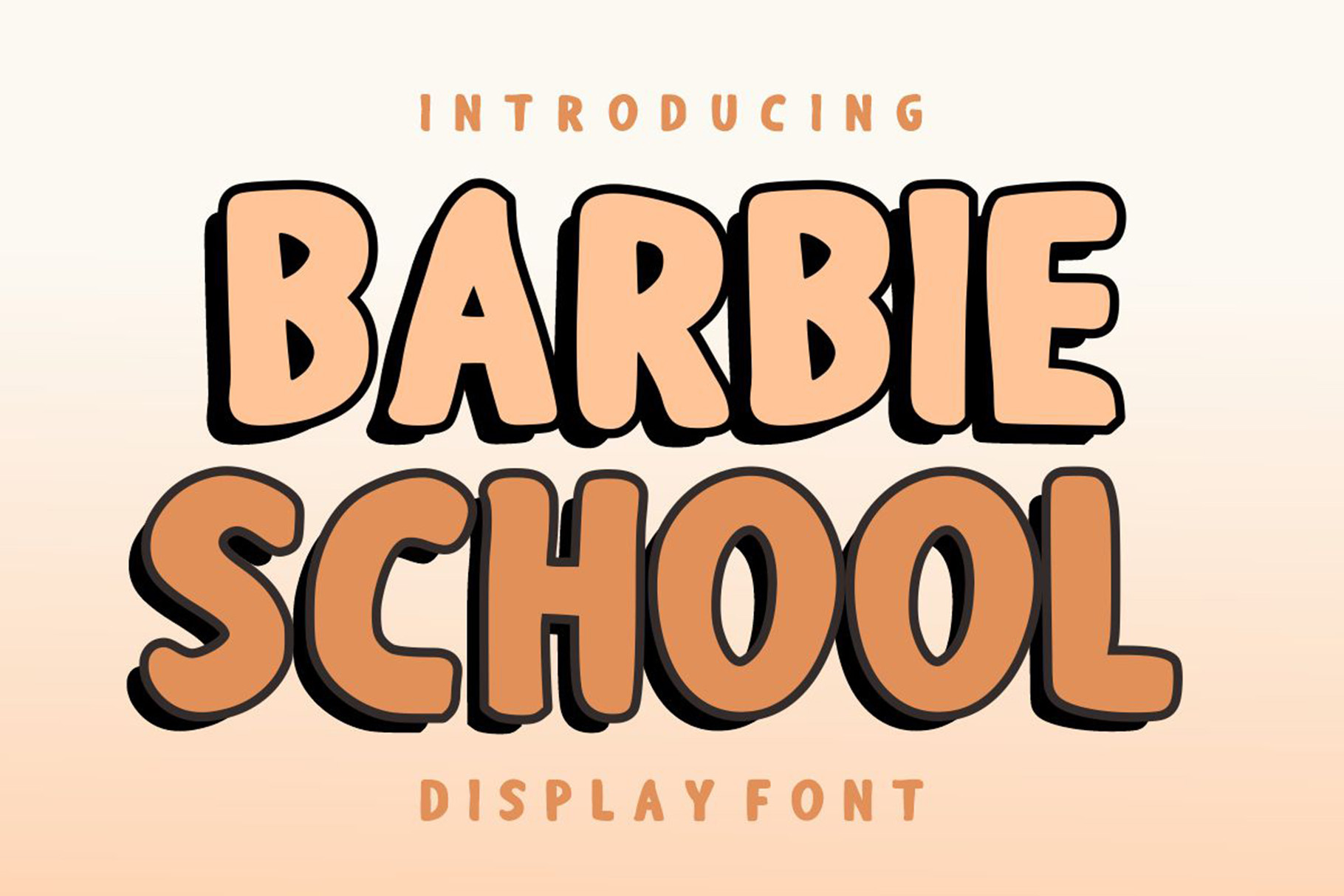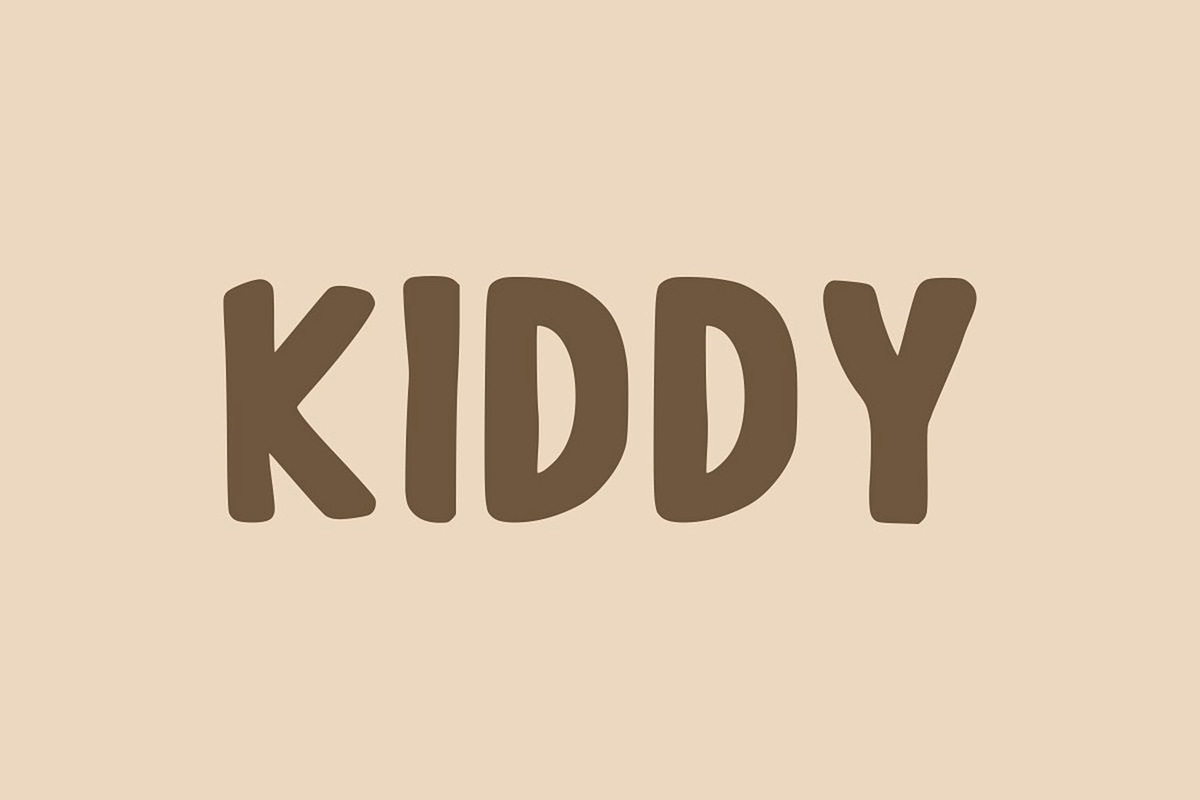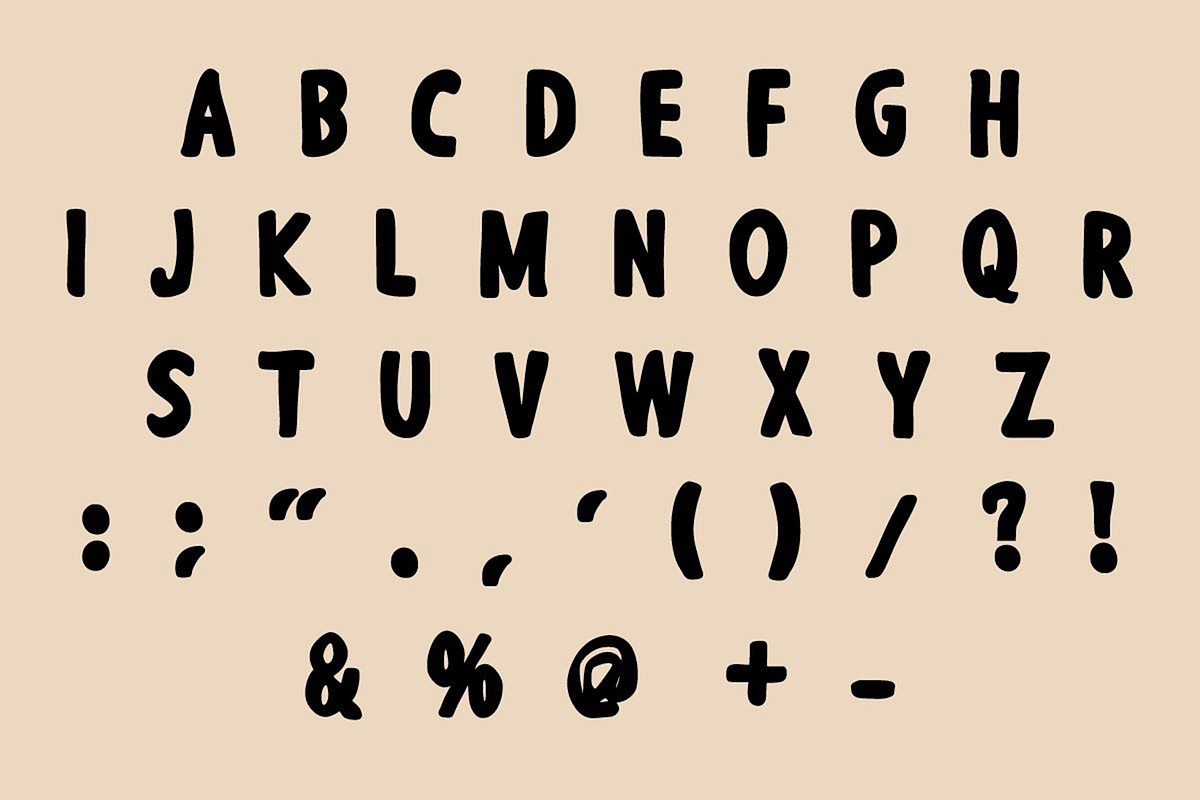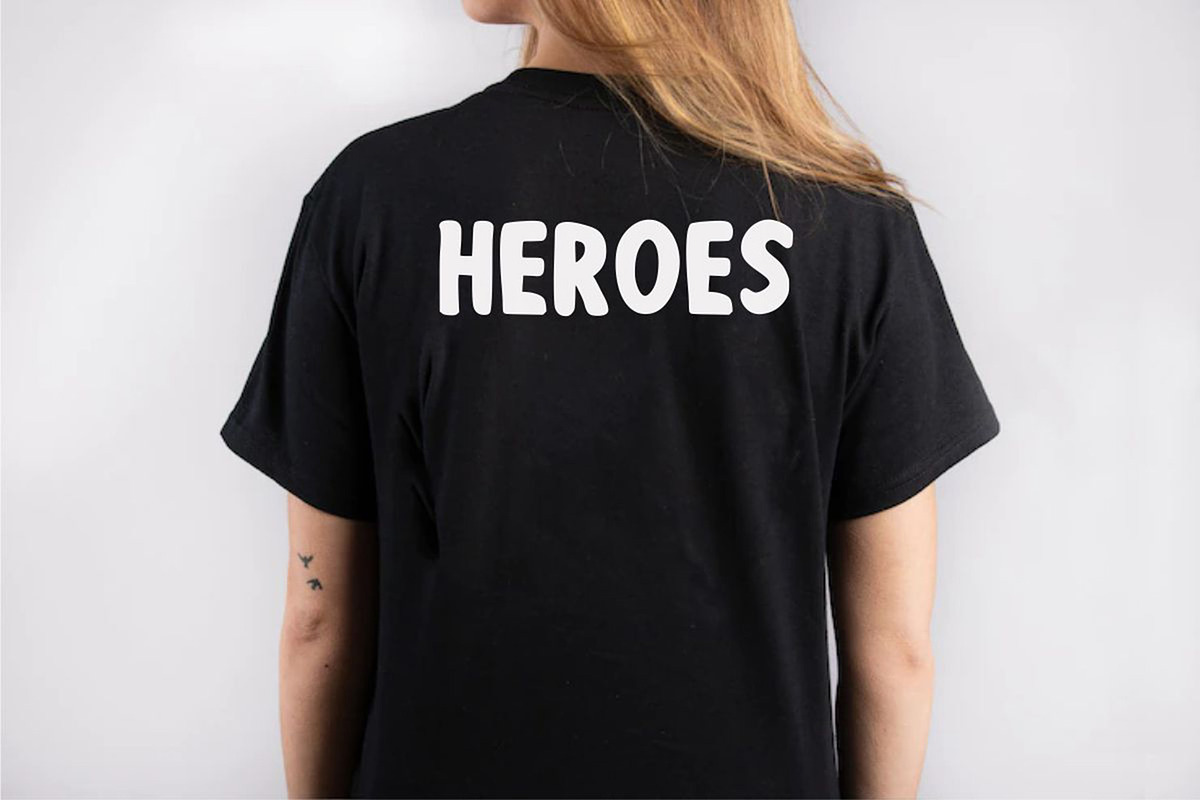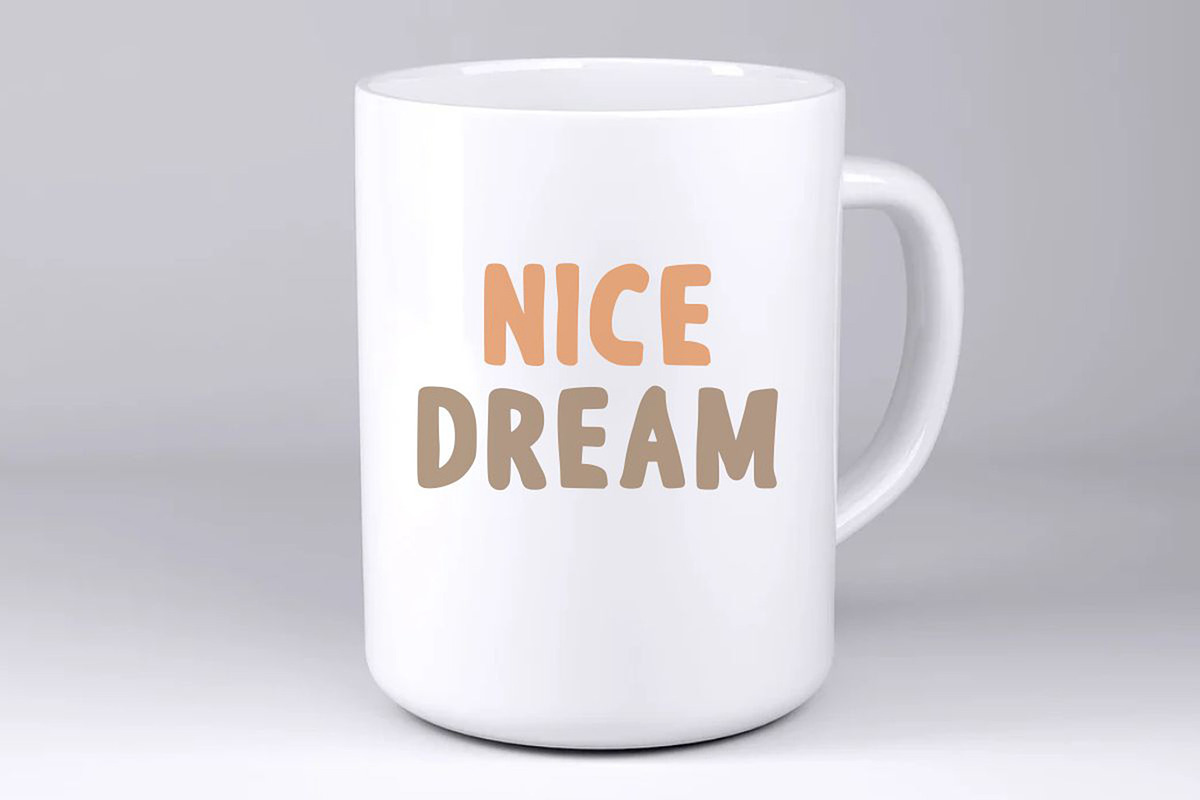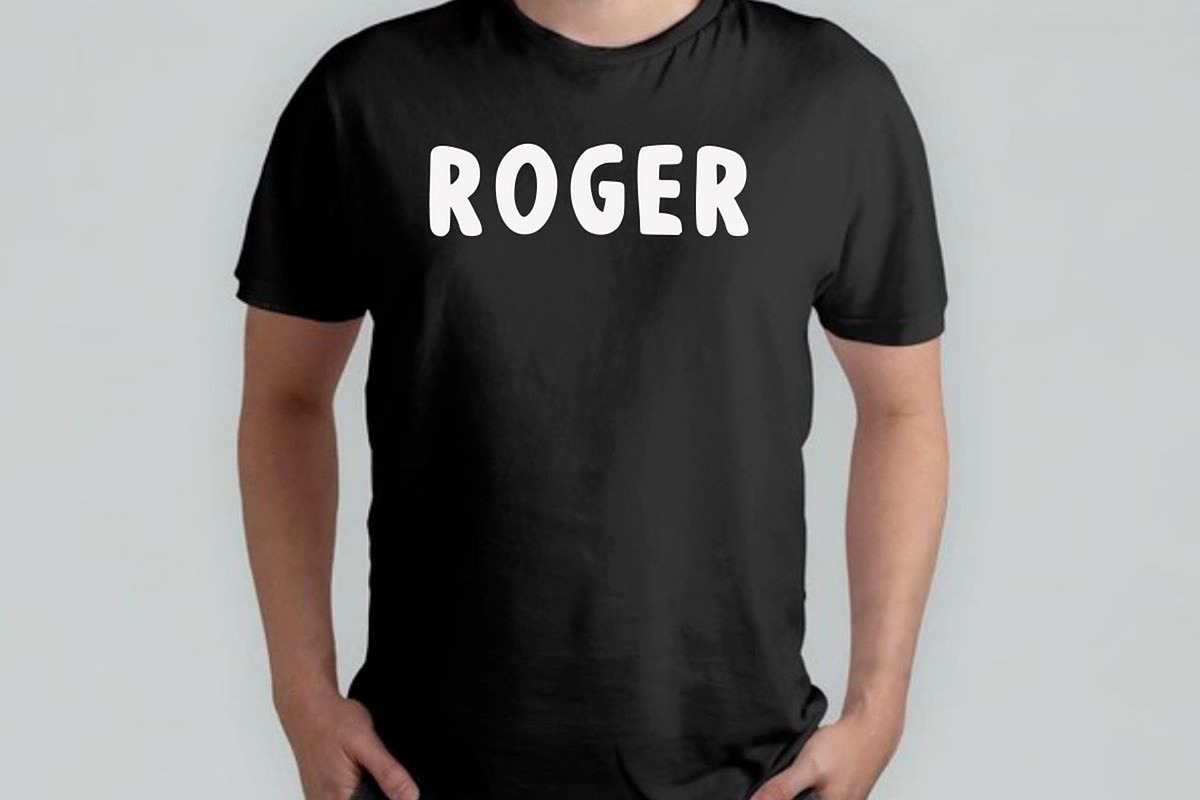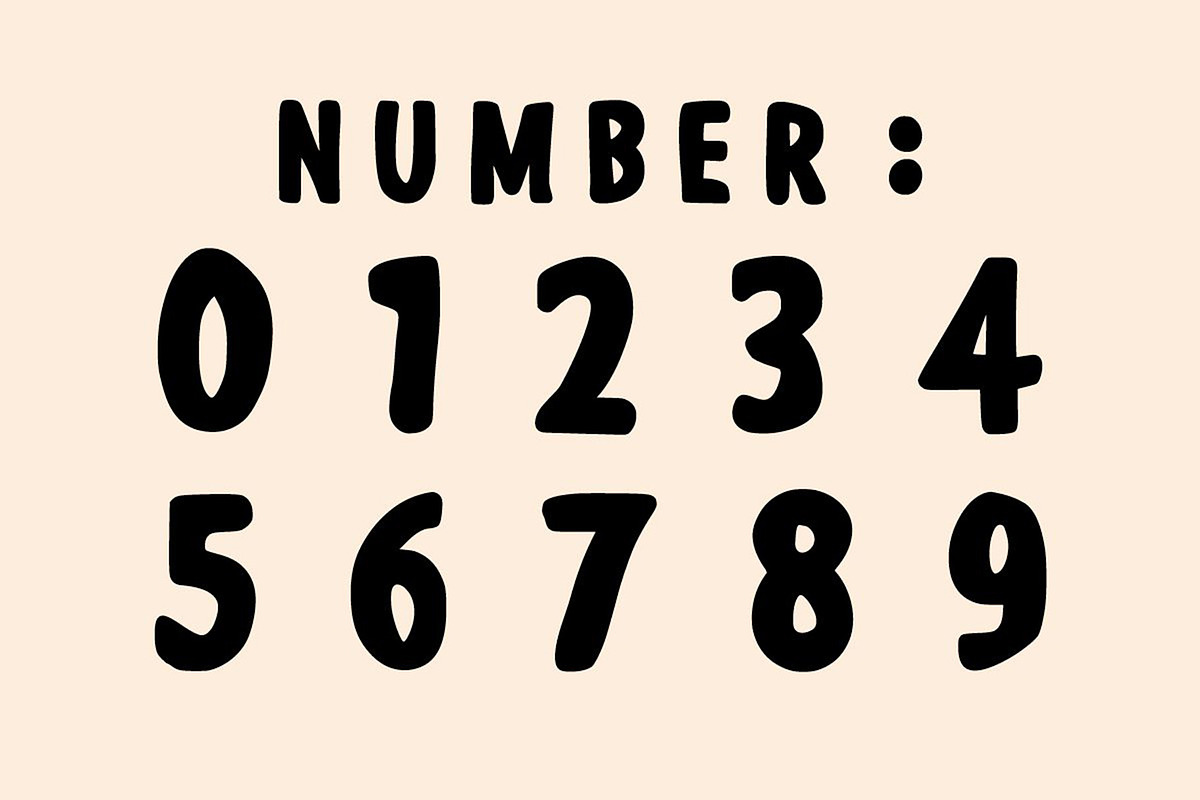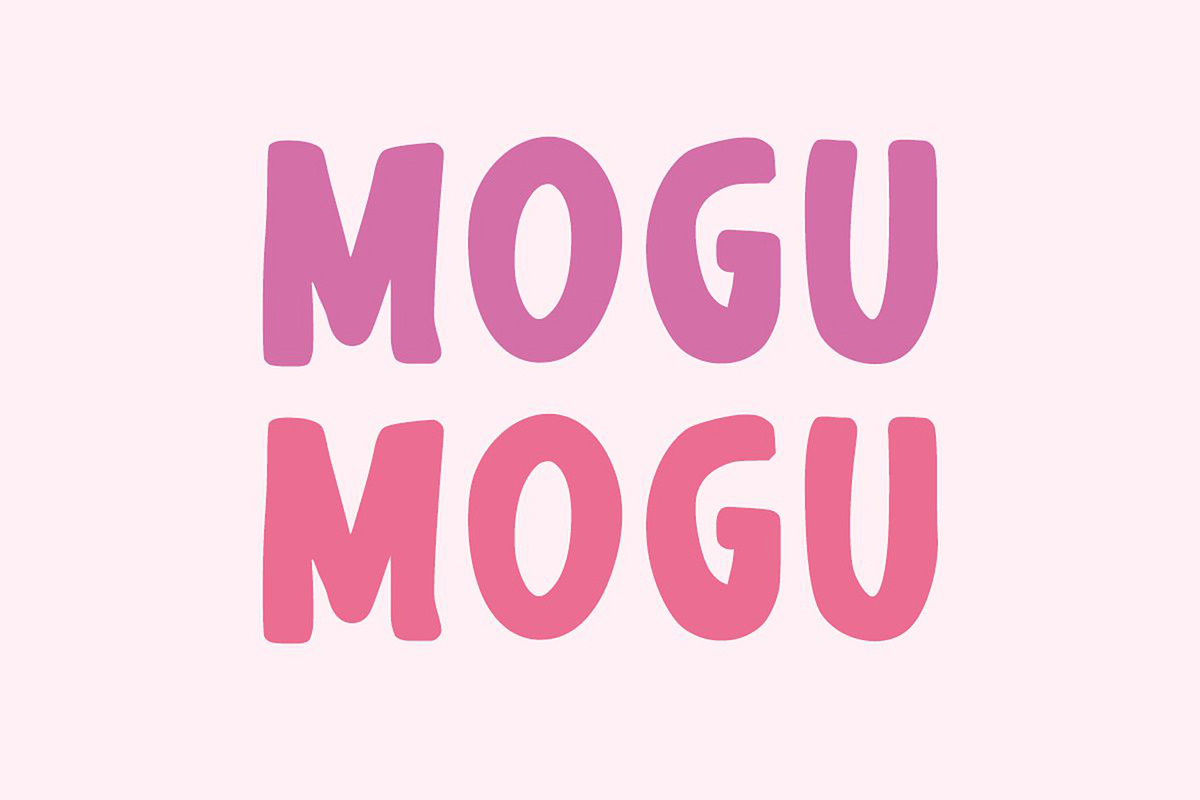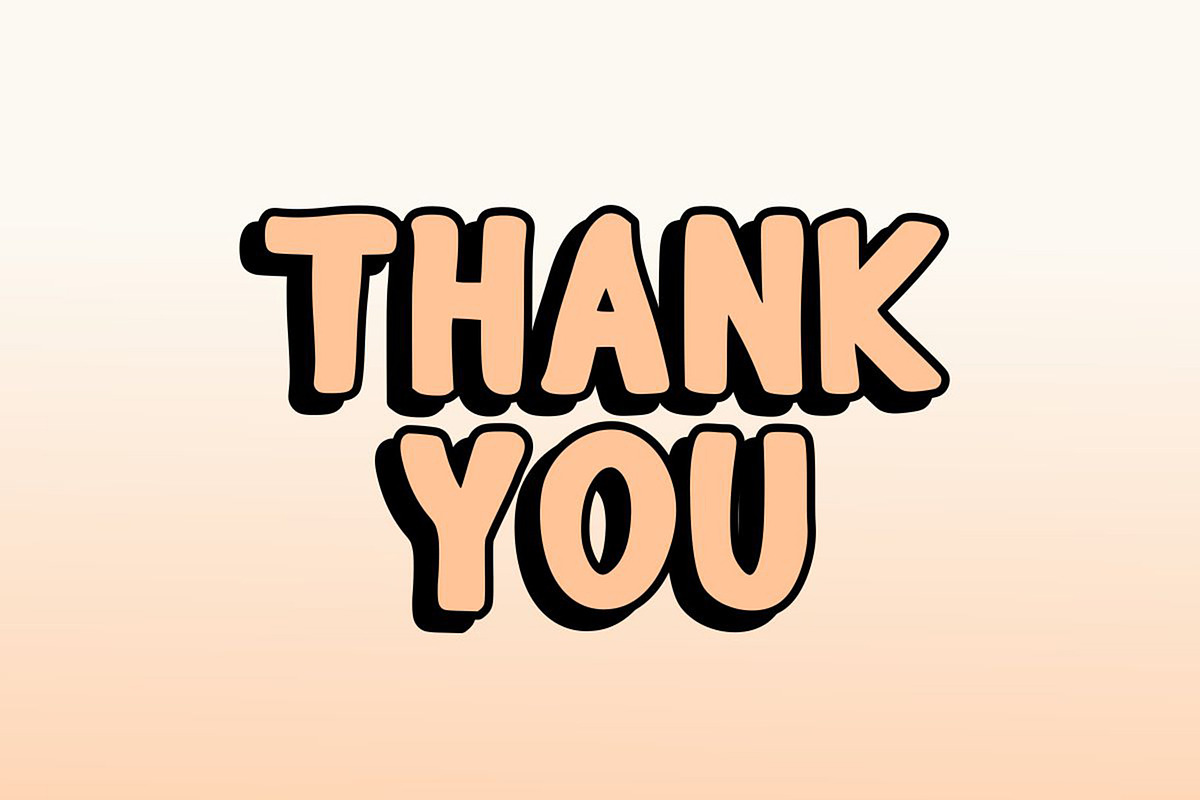
Barbie School - Handrawn Font
Barbie School is a cool and bold-looking display font. It features a dynamic effect and a unique charm. It is perfect for headlines, sporting events, automotive posters, school posters, text effects, templates, logos, or monogrammed designs.